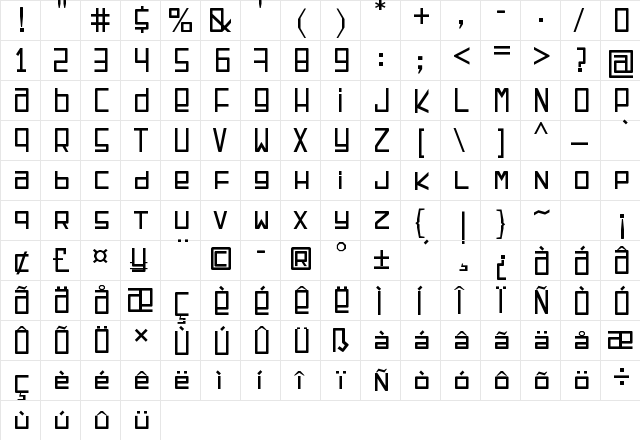
Toys Letters Regular
Design Context for Toys Letters Typeface
Toys Letters takes a measured approach to typography — its balanced proportions and neutral character make it a reliable workhorse for both digital and print work.